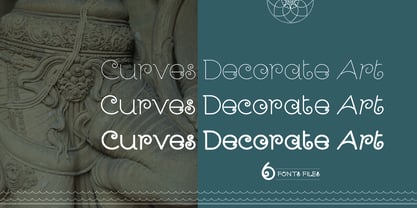
Lanka Curves
by Thilanka Weerawardana
Lanka Curves Font Family was designed by Thilanka Weerawardana and published by Thilanka Weerawardana. Lanka Curves contains 6 styles family package options.
About the family
Lanka Curves is a curly font, with traditional Sri Lankan art curves mixing with modern design elements. It houses more than 200 Glyphs, and can be used as typographical art, as well as a typeface. It's a very versatile font that works great in large and medium sizes. You will be pleased to use the many option of alternates and ligatures, to create nice different rhythms and balances in your creative works.
INSIDE IDEA - In the Sri Lankan art alphabet, the teacher will initially give the ‘Wakadeka’ design (two-tone pattern) first. That pattern made out of curve shapes. The student should tune it up properly until he practices his hand. ‘LANKA CURVES’ typeface is dragged as it exposes the shapes in traditional Sri Lankan designs. Download & enjoy my fonts for your creative works.
Lanka Curves best use for logos, invitations, fashion industry, jewelry industry, decorative designs & whatever you might need, Lanka Curves make it.
About Thilanka Weerawardana
In the Sinhala Art alphabet, the teacher will initially give the ‘Wakadeka’ design (two-tone pattern) first. That pattern is made out of curve shapes. The student should tune it up properly until he practices his hand. My typefaces are dragged as they exposes the shapes in traditional Sri Lankan designs. I carefully used those styles with English alphabet.